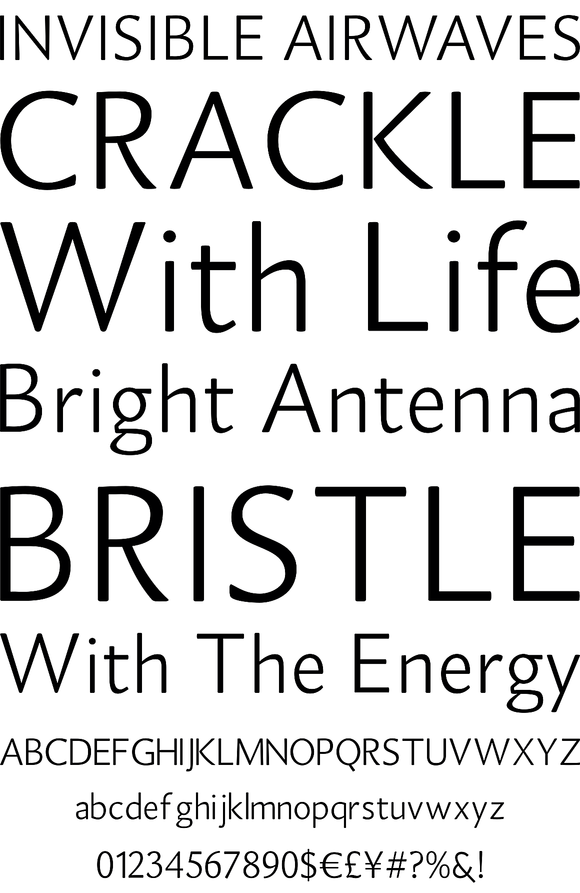
Organic was designed to be highly legible and flexible. I wanted to create a very refined sans-serif that could be used for display or body copy, for print or digital. The Opentype flexibility allowed me to expand the look of the family with alternate cha...
Organic was designed to be highly legible and flexible. I wanted to create a very refined sans-serif that could be used for display or body copy, for print or digital. The Opentype flexibility allowed me to expand the look of the family with alternate characters, small caps, oldstyle figures, and ligatures.